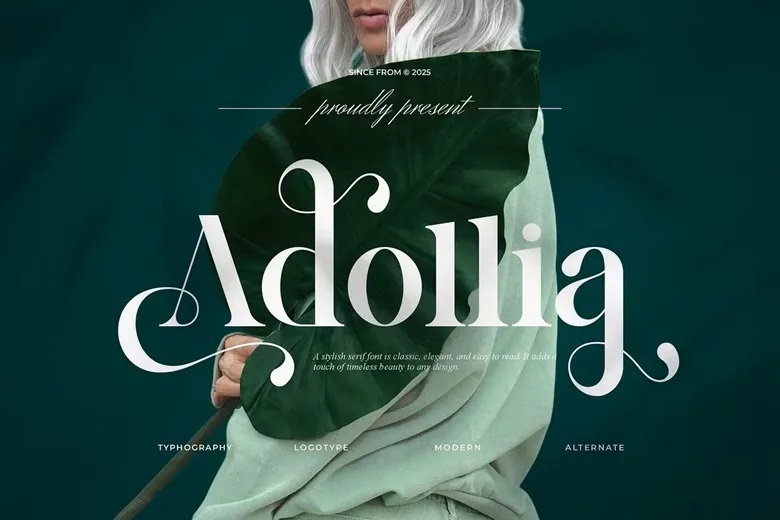
Adollia Font
Adollia is a contemporary and sophisticated serif typeface in all brand and logos. It is a beautiful serif modern and elegant font. The font is appropriate in the designs of invitation cards, cool logos, movie titles, movie names, business cards, book titles, brand names, and other designs. The font is a perfect match to any project due to its smooth ligatures and alternate.
Adollia Serif Font